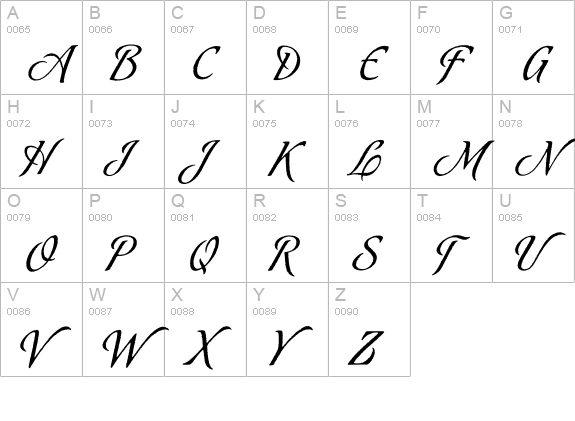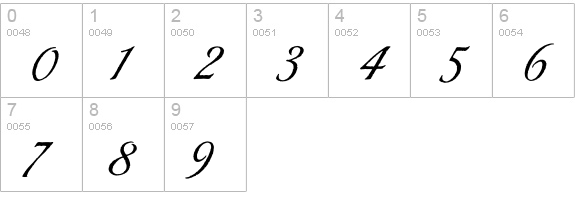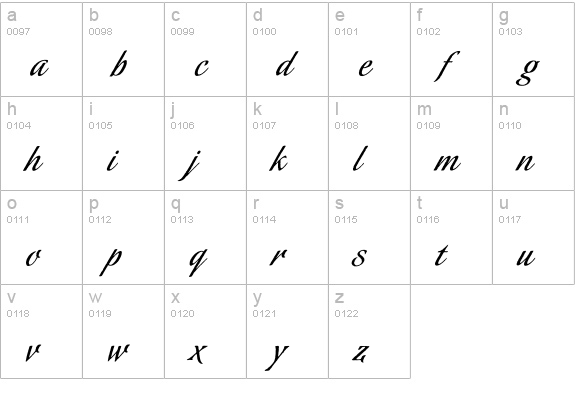
Oxida Font Details
Introducing Oxida font, a sleek and modern typeface that exudes elegance and sophistication. With its clean lines and stylish curves, Oxida is perfect for a wide range of design projects, from branding to packaging to web design. What sets Oxida font apart is its versatility - it can be used for both headings and body text, making it a great choice for creating cohesive and visually appealing designs. The font is available in a variety of weights and styles, allowing you to mix and match to create the perfect look for your project. And the best part? Oxida font is completely free to download at FontsMarket.com. So go ahead and give your designs a touch of class with Oxida font today!